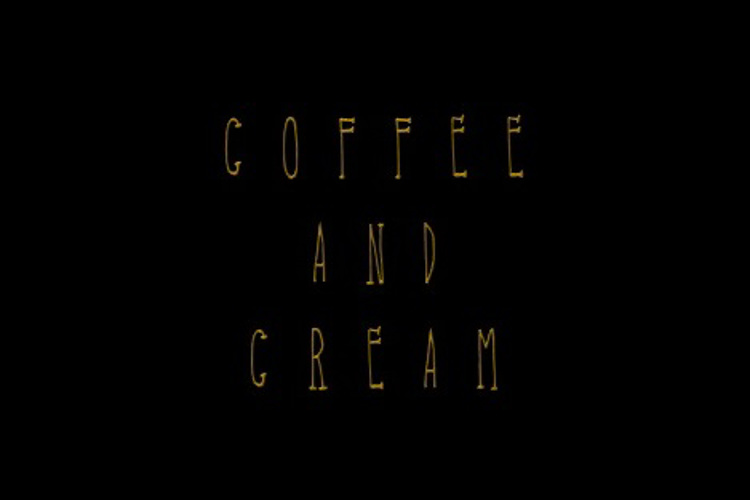
Coffee & Cream NFTS Opensea Font
About Coffee & Cream NFTS Opensea Font
Coffee & Cream is a font and also a Collection of coffee themed NFTs (Non-Fungible Token) designs on Opensea (on TheCrownIsMine page) for use in Coffee Shops, Cafes, Bars, Restaurants and Hotels. My coffee themed NFT designs can be purchased on Opensea then placed on cups, saucers, drink coasters, plates, bowls, mugs, napkins, table placemats, menus, signs and leaflets as well as being used as wall art. Add a touch of Coffee & Cream to your customers experience! **The font here though is FREE to use Commercially and is in the Public Domain**